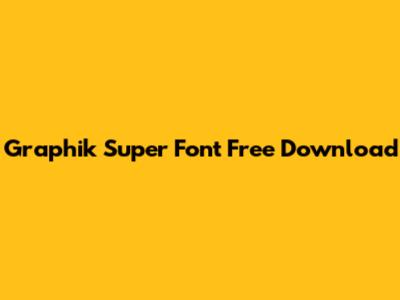
Hey everyone! Are you on the hunt for a sleek, modern, and versatile font to elevate your design projects? Look no further! Today, we’re diving deep into the world of Graphik Super, a font that has been making waves in the design community. We'll explore what makes it so special, where you can (legally!) find it, and how to best use it in your projects. So, let's get started and unleash the power of Graphik Super!
What is Graphik Super Font?
Graphik Super is more than just a font; it's a carefully crafted typeface that blends simplicity with functionality. Designed by Christian Schwartz of Commercial Type, Graphik has become a favorite among designers for its clean lines, geometric structure, and exceptional readability. It's a sans-serif typeface that exudes a contemporary feel, making it suitable for a wide range of applications, from branding and editorial design to web and app interfaces. The beauty of Graphik Super lies in its versatility. It comes in a variety of weights and styles, offering designers a plethora of options to play with. Whether you need a light and airy font for body text or a bold and impactful font for headlines, Graphik Super has got you covered. Its neutral yet distinct character ensures that it complements any design without overpowering it. Think of it as the chameleon of fonts, adapting seamlessly to different contexts and design aesthetics. What sets Graphik Super apart from other sans-serif fonts is its attention to detail. Every glyph has been meticulously designed to ensure consistency and harmony across the entire typeface. This level of care and precision results in a font that is not only visually appealing but also highly legible, making it a joy to read. The font's versatility extends to its language support, accommodating a wide range of characters and scripts. This makes it a great choice for international projects, ensuring that your message is communicated effectively to a global audience. Furthermore, Graphik Super's geometric structure lends itself well to responsive design, meaning it looks great on screens of all sizes, from small mobile devices to large desktop monitors. This is crucial in today's mobile-first world, where designers need to ensure that their designs are accessible and readable across all platforms. In summary, Graphik Super is a well-designed, versatile, and highly functional typeface that is perfect for any designer looking to add a touch of modernity and sophistication to their projects. Its clean lines, geometric structure, and exceptional readability make it a timeless choice that will never go out of style.
Why is Graphik Super Font So Popular?
Graphik Super's popularity stems from several key factors. Its clean, modern aesthetic resonates with contemporary design trends, making it a go-to choice for designers aiming to create a sleek and sophisticated look. The font's neutrality allows it to blend seamlessly with various design styles, whether it's minimalist, corporate, or creative. This versatility is a major draw for designers who need a reliable font that can adapt to different projects and contexts. Another reason for Graphik Super's popularity is its exceptional readability. The font's well-defined letterforms and generous spacing make it easy to read, even at small sizes. This is crucial for body text and other long-form content, where readability is paramount. Designers appreciate that Graphik Super doesn't sacrifice functionality for aesthetics; it's a font that looks good and works well. The wide range of weights and styles available in the Graphik Super family also contributes to its popularity. Designers can choose from a variety of options to create visual hierarchy and add emphasis to their designs. Whether you need a light and airy font for captions or a bold and impactful font for headlines, Graphik Super has the perfect weight to suit your needs. This flexibility allows designers to create more dynamic and engaging layouts, enhancing the overall user experience. Furthermore, Graphik Super's geometric structure makes it ideal for branding projects. The font's clean lines and precise angles convey a sense of professionalism and trustworthiness, making it a great choice for corporate logos and brand identities. Its timeless quality ensures that it will remain relevant for years to come, helping brands to establish a strong and lasting presence. In addition to its aesthetic and functional qualities, Graphik Super is also popular because it's widely supported across different platforms and devices. The font is available in various formats, including OpenType, TrueType, and web fonts, making it easy to use in print, web, and app design. This cross-platform compatibility ensures that your designs will look consistent and professional, regardless of where they are viewed. Finally, Graphik Super's reputation as a high-quality, well-designed typeface has contributed to its popularity. The font has been praised by designers and typographers for its attention to detail, its versatility, and its overall aesthetic appeal. This positive reputation has made it a trusted choice for designers who want to create professional and impactful designs. In conclusion, Graphik Super's popularity is a result of its clean aesthetic, exceptional readability, wide range of styles, suitability for branding, cross-platform compatibility, and positive reputation. It's a font that delivers on all fronts, making it a favorite among designers of all levels.
How to Use Graphik Super Font in Your Designs
So, you've got your hands on Graphik Super, that's awesome! Now, how do you make the most of it in your designs? Here are some tips and best practices to help you leverage the power of this versatile typeface. First, consider the overall tone and message of your design. Graphik Super's clean and modern aesthetic makes it well-suited for a wide range of applications, but it's important to ensure that it aligns with the overall brand identity and design goals. If you're working on a corporate project, Graphik Super's professionalism and trustworthiness can help to convey a sense of stability and reliability. If you're working on a creative project, its versatility and adaptability can allow you to experiment with different styles and layouts. Next, pay attention to the font's weight and style. Graphik Super comes in a variety of weights, from light to bold, and each weight has its own unique character. Use different weights to create visual hierarchy and add emphasis to your designs. For example, use a bold weight for headlines and a light weight for body text to guide the reader's eye and create a clear and engaging layout. In addition to weight, consider using different styles of Graphik Super, such as italic or condensed, to add visual interest and variety to your designs. Italic styles can be used to emphasize specific words or phrases, while condensed styles can be used to save space and create a more compact layout. Experiment with different combinations of weights and styles to find what works best for your project. Furthermore, pay attention to the font's kerning and leading. Kerning refers to the spacing between individual letters, while leading refers to the spacing between lines of text. Adjusting these settings can have a significant impact on the readability and overall aesthetic of your design. In general, you want to ensure that the kerning is consistent and that the leading is appropriate for the font size and line length. Too little kerning can make the text appear crowded and difficult to read, while too much kerning can make the text appear disjointed and unprofessional. Similarly, too little leading can make the text appear cramped and uncomfortable to read, while too much leading can make the text appear floaty and disconnected. Another important consideration is the font's color and contrast. The color of the font should complement the background color and create sufficient contrast for readability. In general, dark fonts on light backgrounds and light fonts on dark backgrounds provide the best contrast. Avoid using colors that are too similar, as this can make the text difficult to read. In addition to color, consider using other visual elements, such as images, illustrations, and icons, to enhance your design and create a more engaging and visually appealing layout. However, be careful not to overcrowd the design or create too much visual clutter. The goal is to create a balanced and harmonious design that is both visually appealing and easy to understand. Finally, always test your designs on different devices and platforms to ensure that they look good and function properly. This is especially important for web and app designs, where users may be viewing your designs on a variety of screens and devices. Use responsive design techniques to ensure that your designs adapt to different screen sizes and resolutions, and test your designs on different browsers and operating systems to identify and fix any compatibility issues. In conclusion, using Graphik Super font effectively in your designs requires careful consideration of the font's weight, style, kerning, leading, color, contrast, and overall aesthetic. By following these tips and best practices, you can leverage the power of Graphik Super to create professional, engaging, and visually appealing designs that communicate your message effectively.